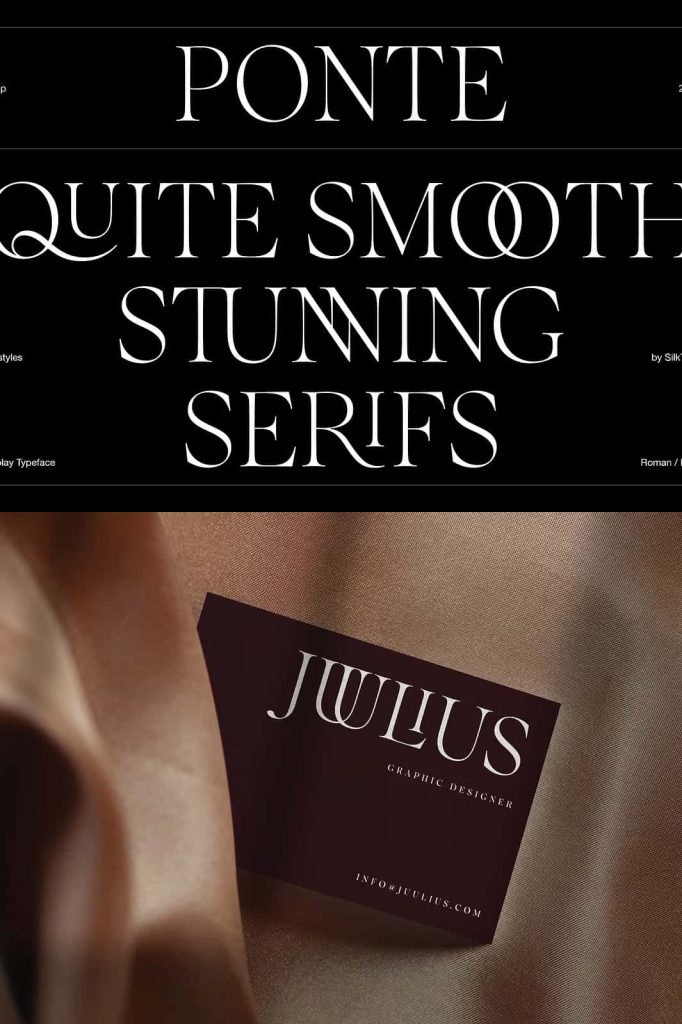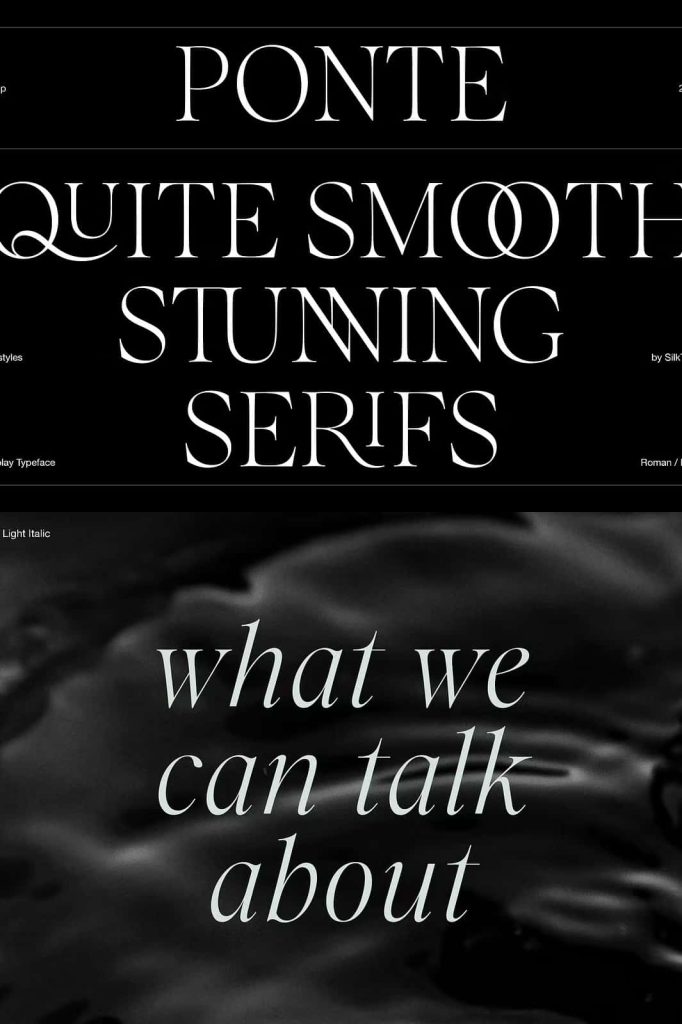
Ponte Font: A Bold, Elegant Typeface for Modern Designers
Ponte Font is a striking high-contrast display typeface crafted for designers who seek impact, sophistication, and versatility. Defined by its smooth, refined serifs and dynamic structure, Ponte was created to make every headline, logo, and title stand out with elegance and authority. This expertly designed font family offers ten distinct styles—each one engineered to balance beauty and strength across a range of creative applications. From light and airy compositions to bold, dramatic layouts, Ponte delivers visual power in every setting.
Designed for Impact and Elegance
The Ponte Font was built to capture attention from the very first glance. Its strong contrast between thick and thin strokes creates a dramatic visual rhythm, while the soft serifs lend a sense of sophistication and polish. The combination of modern structure and classical proportions gives Ponte a unique identity—one that feels timeless yet contemporary. Each letterform is carefully balanced to produce a harmonious look, ensuring that every word appears intentional and expressive.
Perfect for large-scale typography such as headlines, posters, and editorial layouts, Ponte commands presence without sacrificing grace. Its sculptural curves and clean lines make it ideal for projects that need a touch of refinement combined with bold visual impact.
Versatility Through Ten Styles
One of Ponte’s most remarkable strengths lies in its extensive family of styles. With ten variants—including Roman and Italic options across five weights from Extra Light to Bold—designers have the flexibility to experiment with tone and texture. This range allows Ponte to adapt seamlessly to diverse design needs, from elegant editorial spreads to high-end branding and digital interfaces.
The lighter weights bring a sense of sophistication and openness to luxury packaging and fashion branding, while the bolder versions deliver a commanding presence ideal for advertisements and statement headlines. The Italic styles add a touch of fluidity and movement, making them perfect for adding emphasis or personality to your typography.
Decorative Ligatures for Creative Expression
Beyond its core design, the Ponte Font also includes over 80 decorative ligatures, offering designers endless possibilities for creative expression. These unique letter connections enhance the visual flow of text, adding flair and character to words and phrases. Whether you’re designing a magazine cover, a luxury logo, or a digital banner, these ligatures can help transform ordinary text into sophisticated works of art.
The detailed craftsmanship behind these ligatures ensures seamless integration with the base letterforms. They bring a touch of individuality to each composition while maintaining consistency and readability. This makes Ponte an exceptional choice for designers who value creativity, flexibility, and a polished finish.
Perfect for Premium and Contemporary Design Projects
The Ponte Font fits perfectly into projects that demand both style and professionalism. Its refined structure and artistic flair make it suitable for:
- Luxury branding and product packaging
- Magazine titles and editorial layouts
- Advertising campaigns and promotional materials
- Website headers and hero banners
- High-end event invitations and printed collateral
Regardless of medium, Ponte’s versatility ensures your typography remains striking and memorable. Its ability to balance modern aesthetics with timeless details makes it an indispensable asset for designers aiming to elevate their visual storytelling.
Modern Craftsmanship for Digital and Print
Every aspect of the Ponte Font was designed with precision and usability in mind. The font family performs flawlessly across both digital and print platforms, ensuring crisp rendering and perfect alignment. Ponte’s structure allows for clear readability, even at smaller sizes, while its high-contrast elements shine best in larger, display-oriented contexts.
Its multilingual support and comprehensive glyph set make it a valuable choice for global design projects. The thoughtful engineering behind Ponte guarantees that designers can rely on consistent quality, no matter the platform or output medium.
Conclusion: A Typeface That Combines Power and Grace
The Ponte Font exemplifies the harmony between precision and artistry. With its smooth serifs, high contrast, and extensive range of styles, it empowers designers to create visually stunning typography that stands out across all forms of media. The addition of 80+ decorative ligatures enhances its expressive power, making every project unique and memorable.
Ponte Font – where elegance meets impact. Perfect for headlines, branding, and design projects that demand confidence and sophistication.